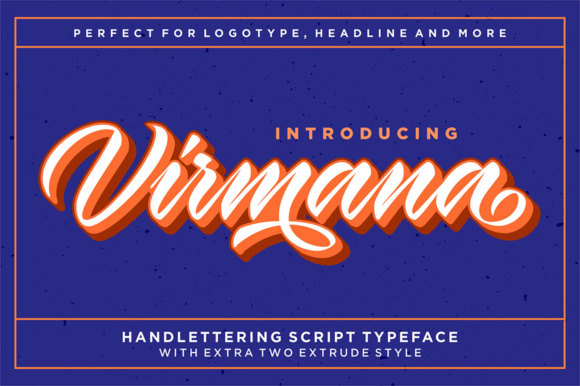
Journey back to the golden age of retro with Virmana Font, an enchanting retro calligraphy brushstroke font that captures the essence of nostalgia and timeless elegance. Discover three captivating styles that dance harmoniously together, creating endless possibilities for your artistic expressions.
Indulge in the allure of the Classic style, where sweeping curves and sharp edges intertwine to form an effortlessly stylish typeface. Witness the remarkable Modern style, a masterful fusion of classic charm and contemporary aesthetics, exuding a distinctive personality that commands attention. Experience the boundless creativity of the Shadow style, where delicate shadows dance beside each letter, adding depth and intrigue to your designs.
Virmana Font is a visual masterpiece that breathes life into your creative endeavors. Its bold strokes and graceful swashes evoke a sense of wonder, while its retro charm lends an air of sophistication to any project. Unleash your imagination and explore the limitless possibilities that await you with this remarkable font.
Picture your designs adorned with Virmana Font's captivating charm. From captivating logotypes that demand attention to striking headlines that leave a lasting impression, this font is your gateway to creating truly unforgettable visual experiences.
Don't settle for ordinary fonts that fade into the background. Embark on an artistic journey with Virmana Font and let your creativity soar. Its versatility knows no bounds, effortlessly adapting to a multitude of design projects, including branding, packaging, social media graphics, and more.
Unlock the door to boundless creativity with Virmana Font. Transform your designs into works of art that captivate and inspire. Let your imagination run wild and witness the magic unfold as Virmana Font elevates your projects to new heights of visual excellence.